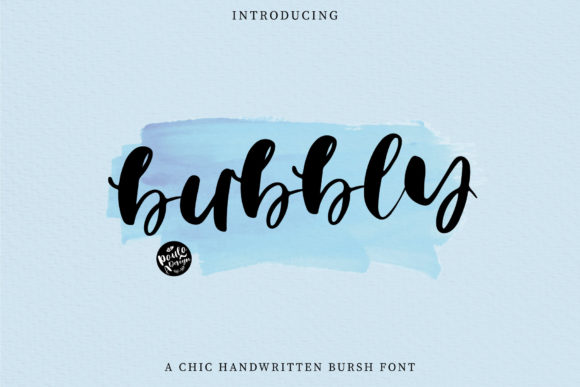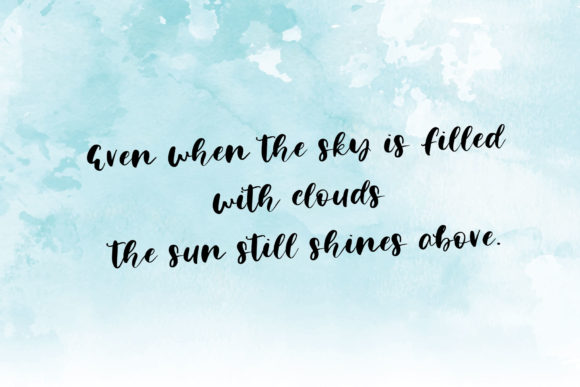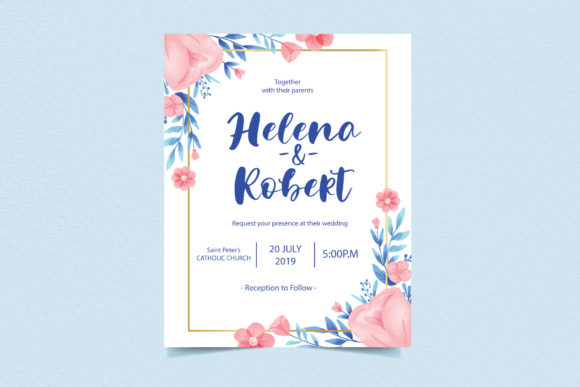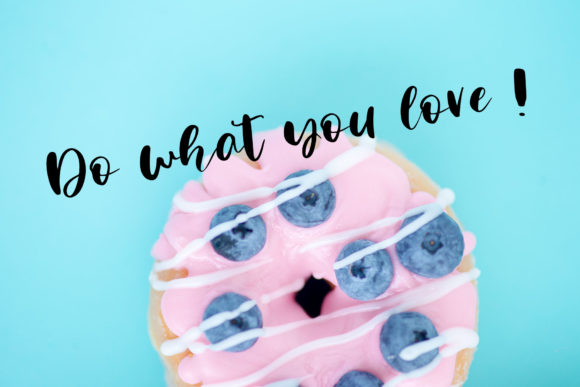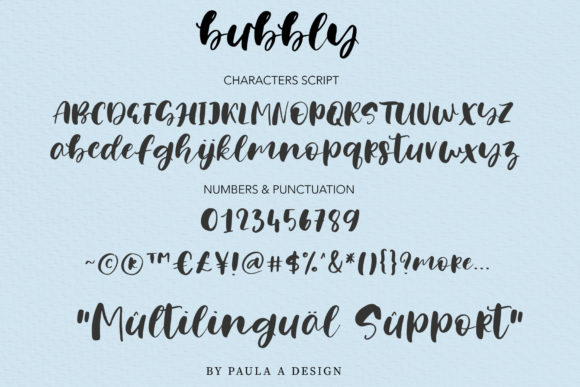
Bubbly Font
About Bubbly Font
The Bubbly is a chic brush font. It has a stylish look which is perfect for high impact headlines.
It can be used for invitations, branding, blog posts, and much more!